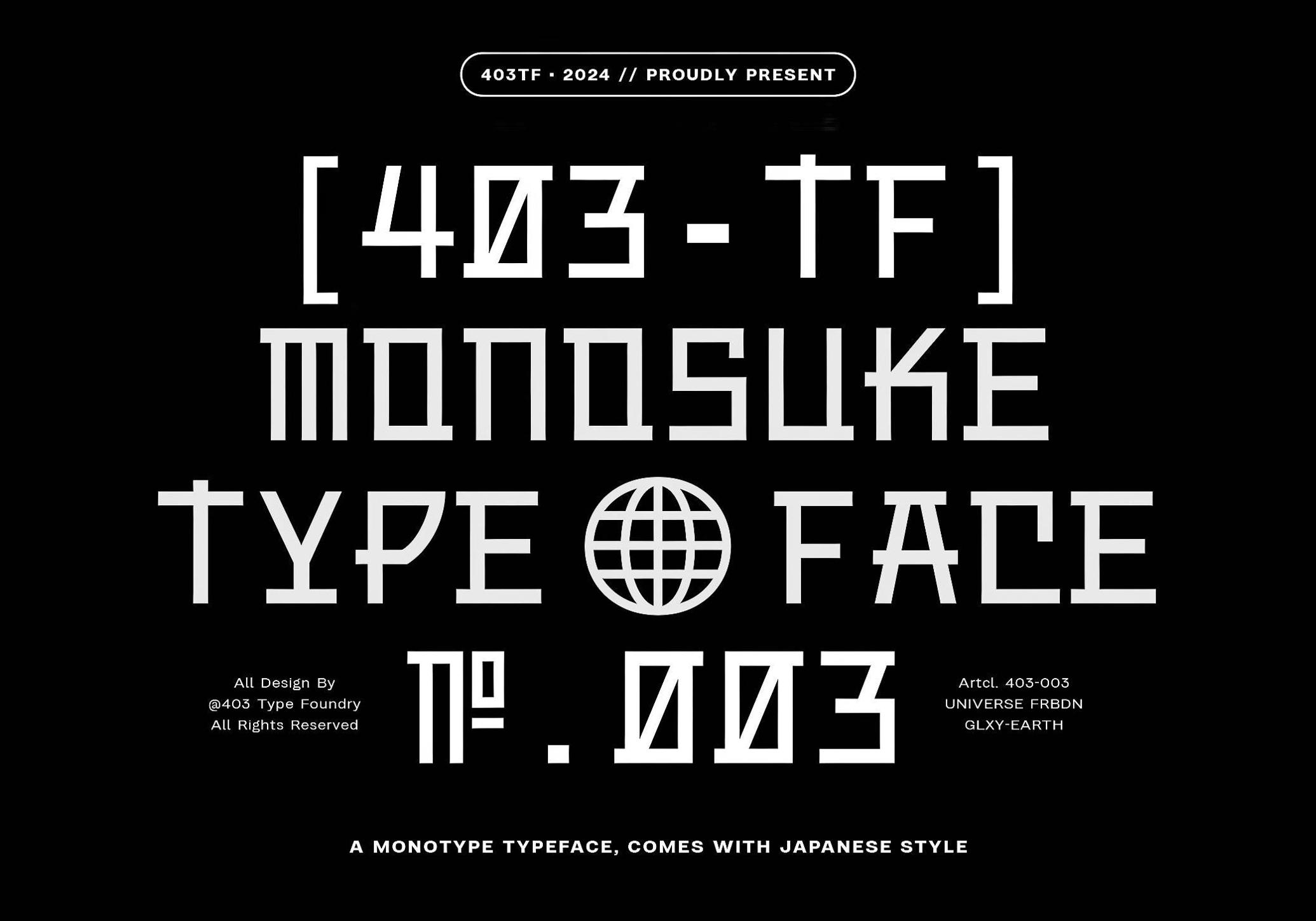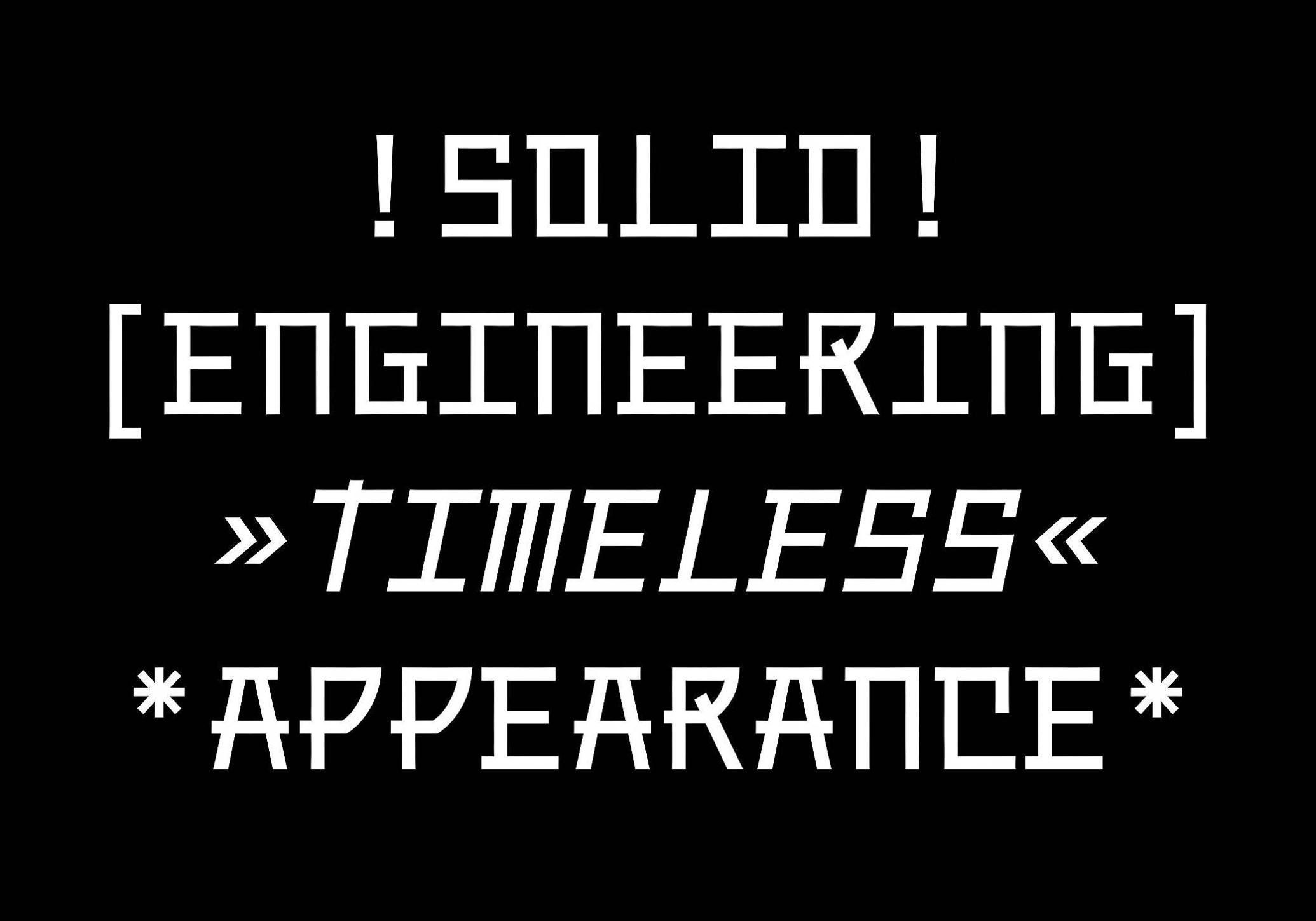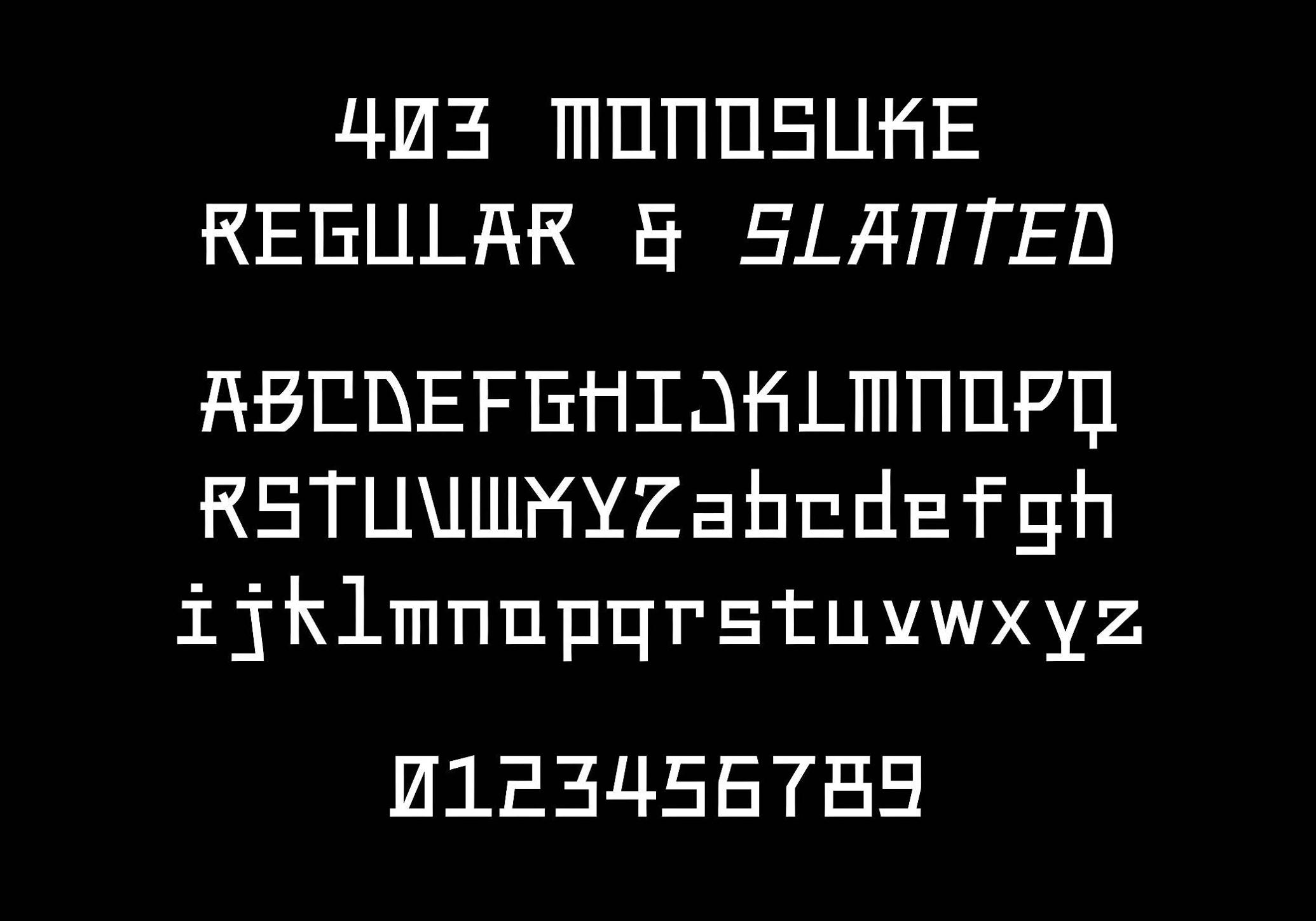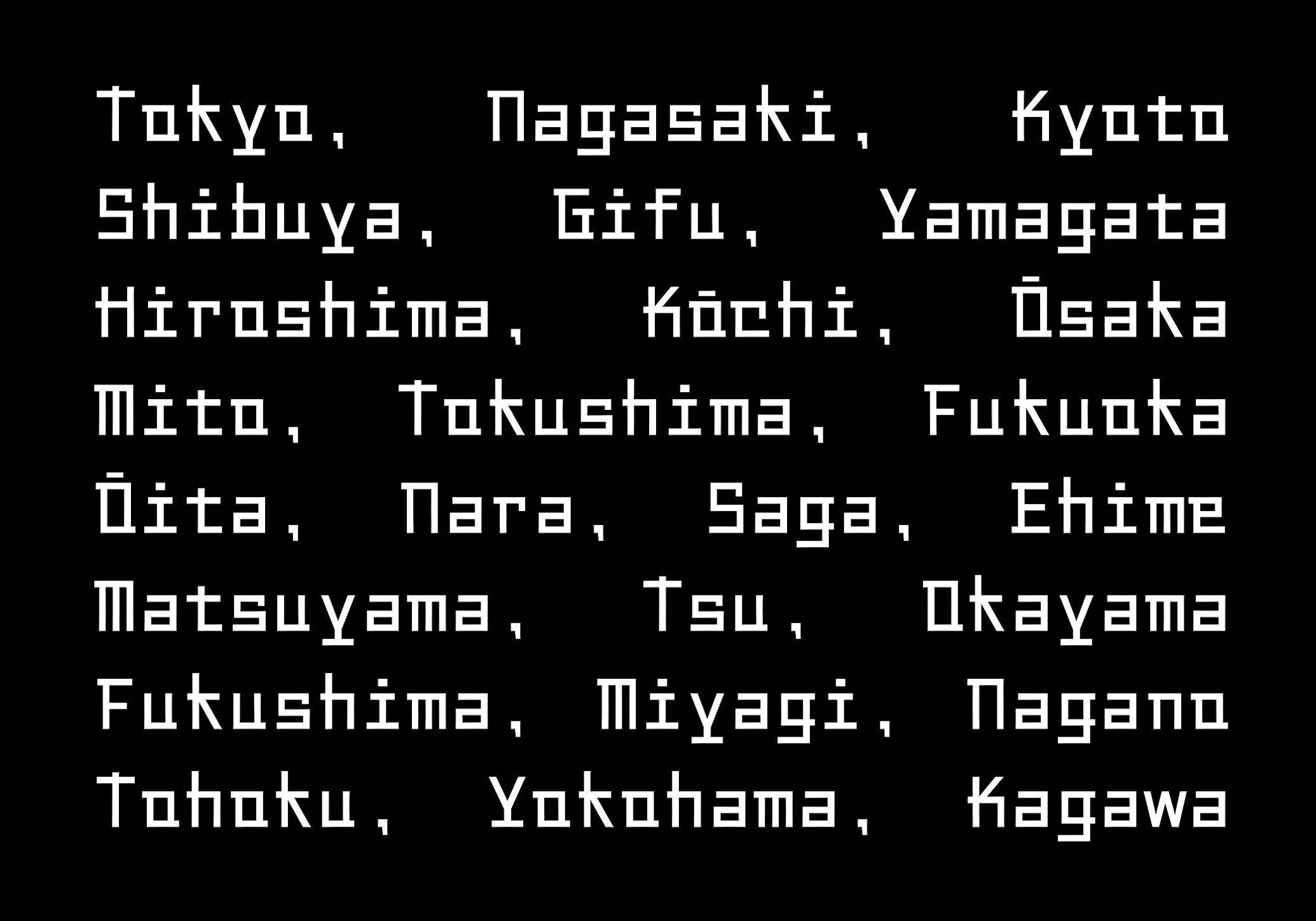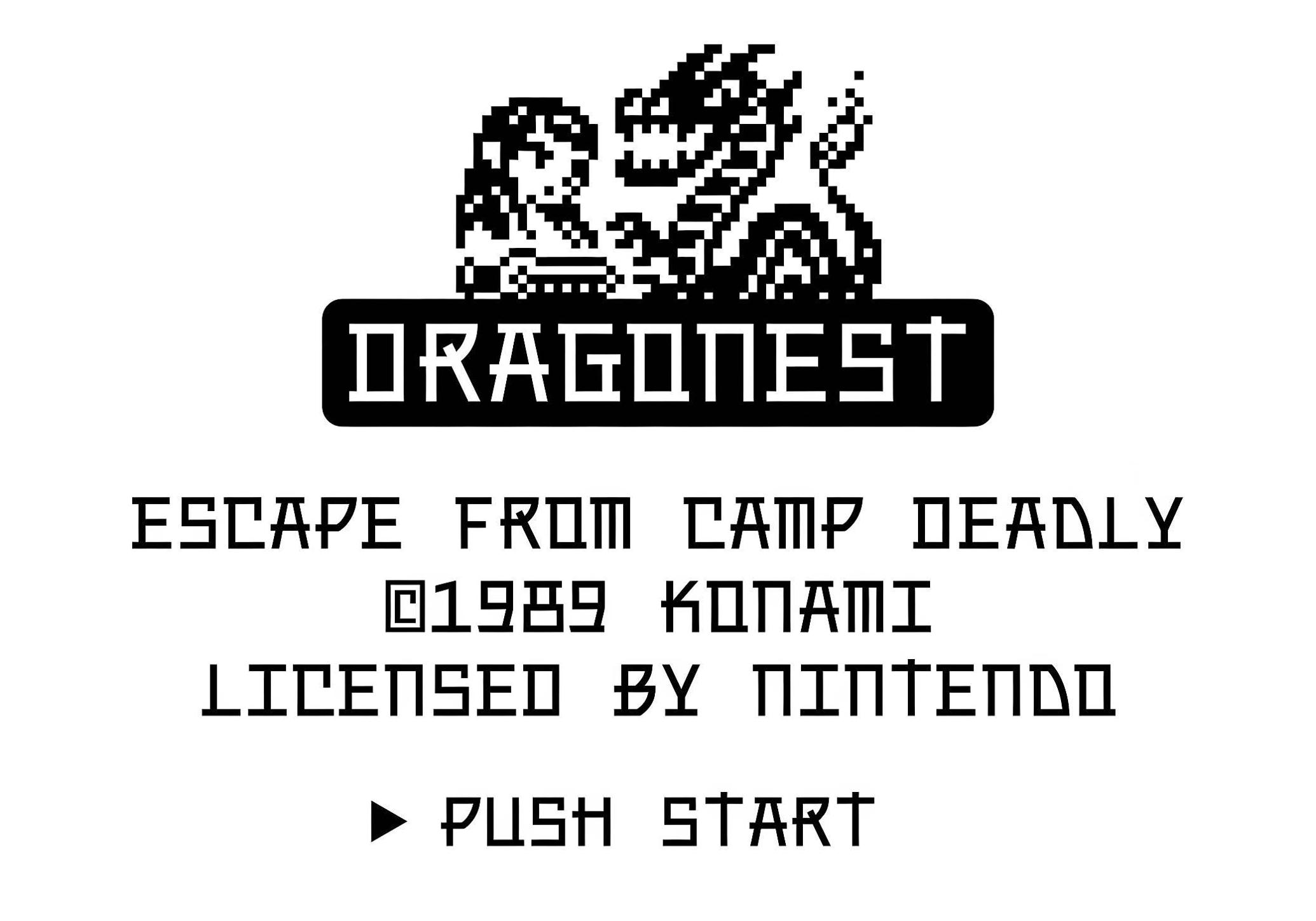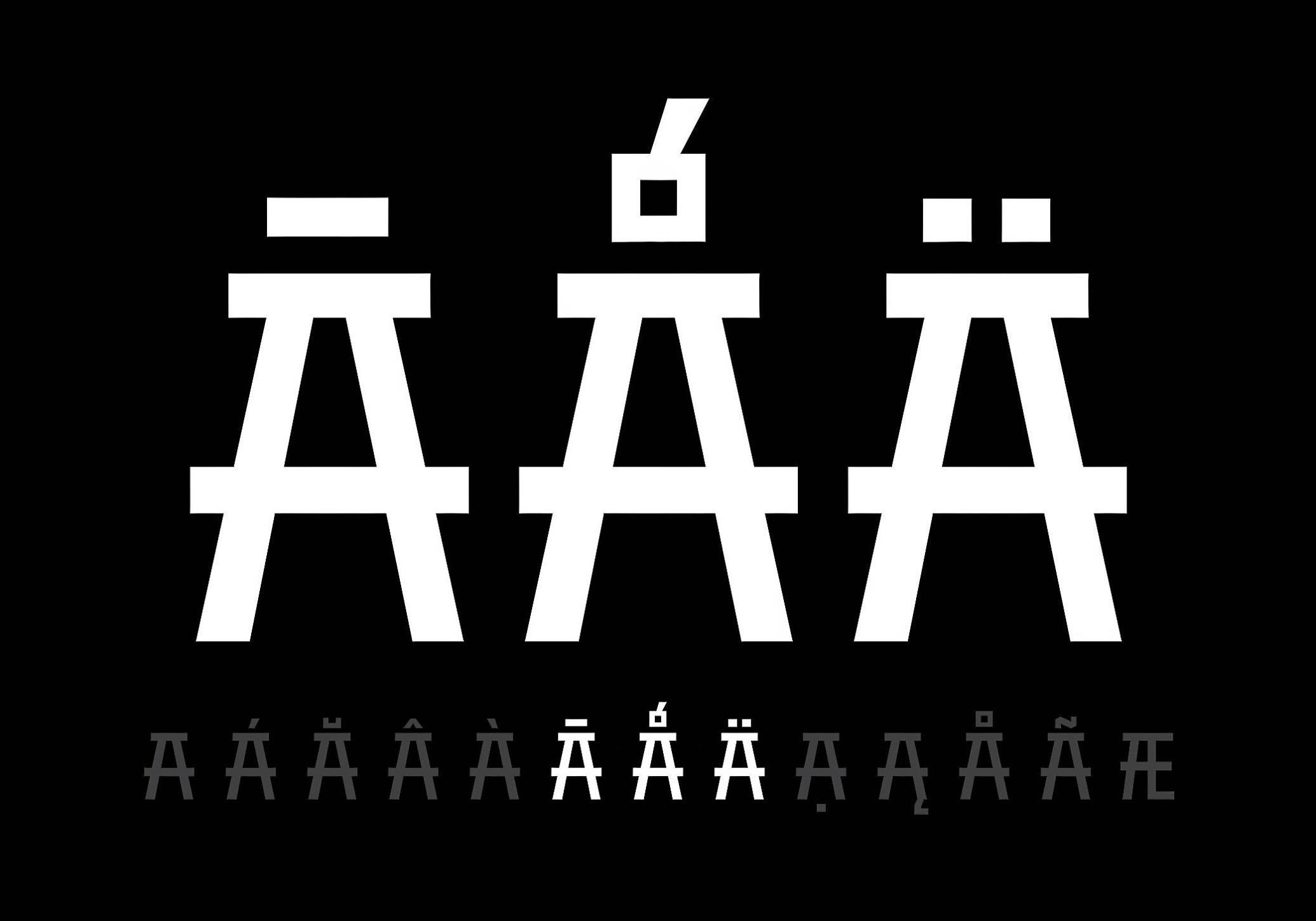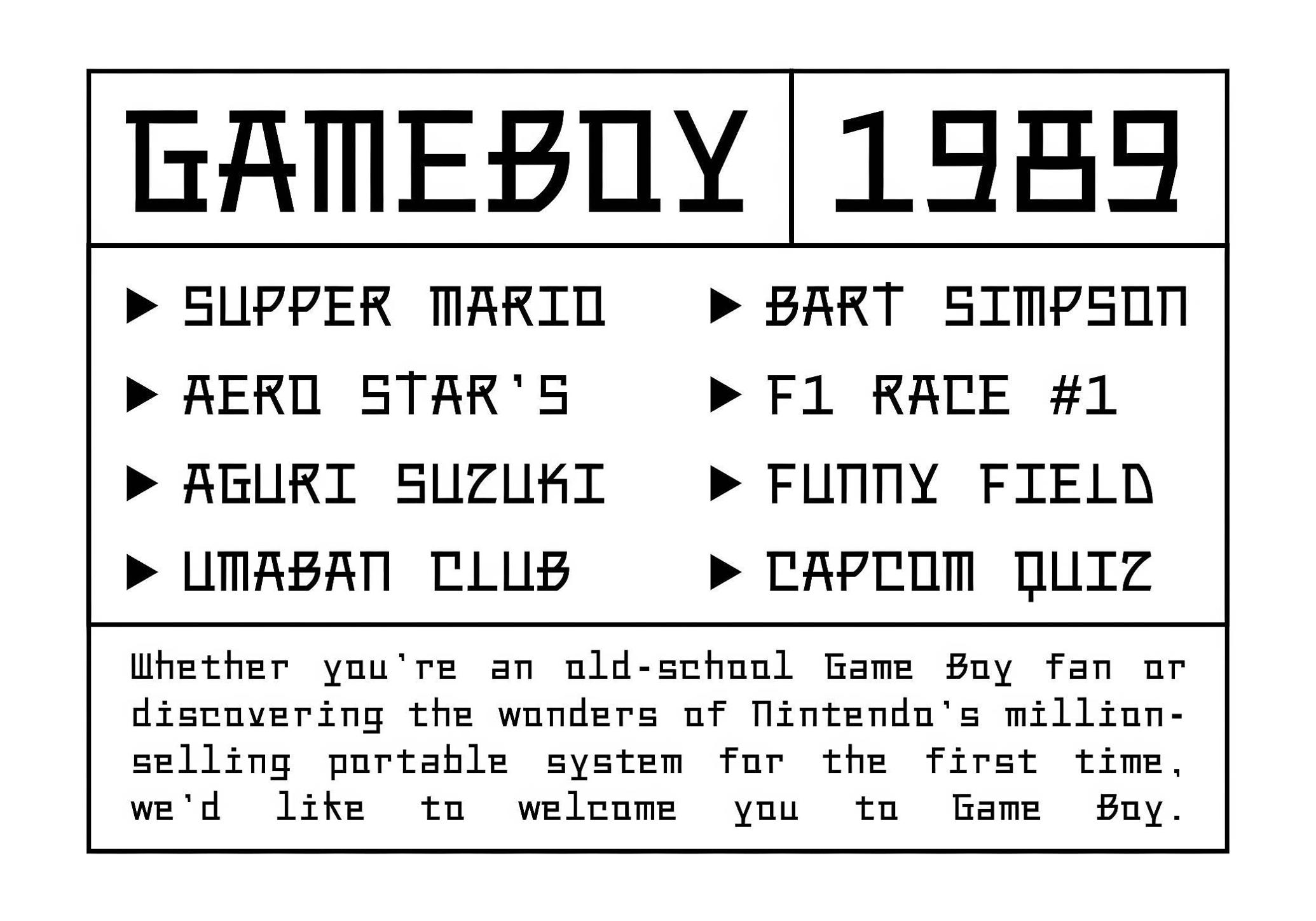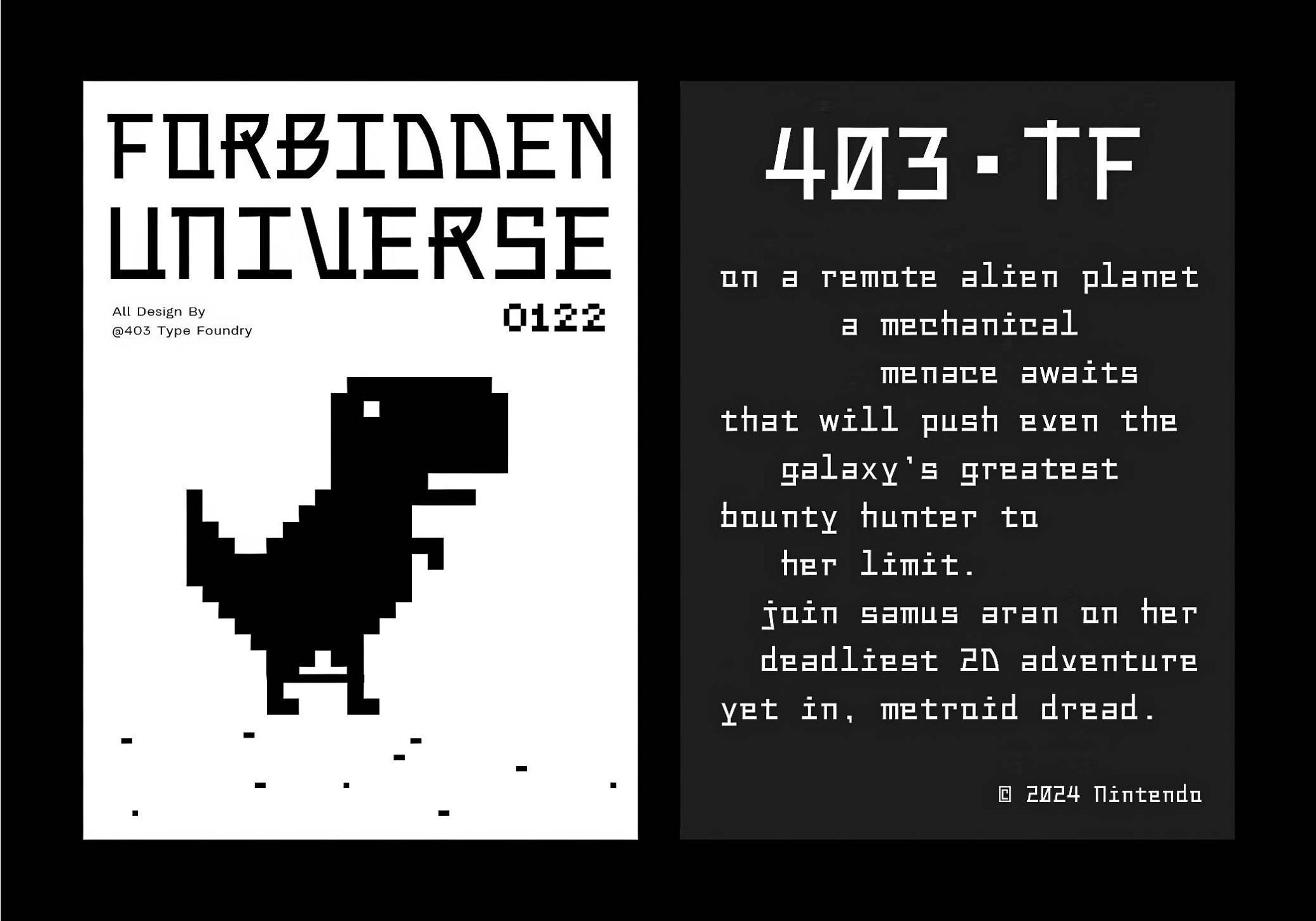
403 Monosuke — Serif Font
403 Monosuke is a futuristic homage to mono fonts. It brings a sharp-edged attitude wrapped in Japanese-inspired minimalism. The geometric cuts and stoic symmetry feel like they were engineered in a satellite lab — clear and perfectly calculated. This typeface is here to organize, to lead, to cut through visual noise with exacting discipline. With both upright and slanted styles, it offers subtle flexibility without losing grip on its mechanical cool. The set of glyphs includes upper and lower case as well as numerals and punctuation. Ideal for branding, interfaces, or editorial projects that demand structure with a cultural edge.